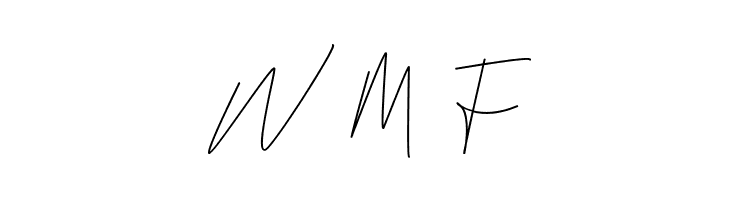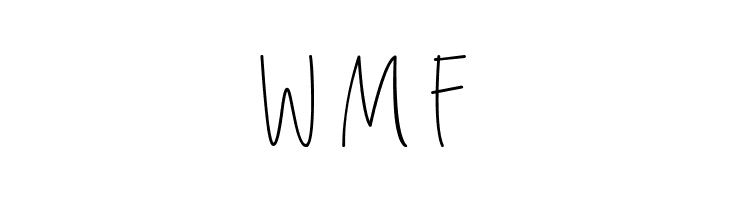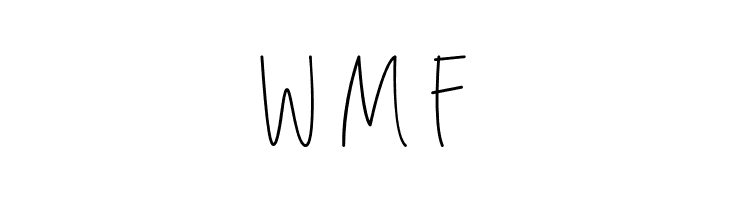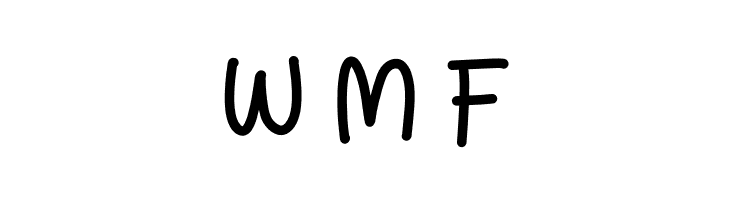
A playful, paw-print adorned font with bold, rounded characters.
A classic Blackletter font with ornate, angular letterforms and a medieval manuscript feel.
A bold, traditional blackletter font with intricate and ornate letterforms.
A bold, gothic-style blackletter font with ornate, angular characters.
A bold, geometric font with a modern and impactful style.
A playful, handwritten font with bold, rounded strokes and a whimsical style.
A bold, brush-style font with dynamic and rough strokes.
A bold, geometric font with strong, uniform letterforms.
A bold, geometric font with strong, modern letterforms.
A modern, elegant script font with flowing, cursive characters.
A bold, brush-style font with expressive, hand-painted strokes.
A decorative font with whimsical cat illustrations for each character.
A bold, blackletter-inspired font with intricate, angular letterforms.
A decorative cat-themed silhouette font.
A bold, high-contrast serif font with elegant curves and pronounced serifs.
Playful hand-drawn cat illustrations with varied expressions.
A playful, textured font with a handcrafted, fuzzy appearance.
A bold, decorative font with a stacked, three-dimensional outline effect.
A modern, elegant script font with flowing, cursive letterforms.
An elegant, flowing script font with thin, delicate lines and graceful curves.
A casual, handwritten font with a light and fluid style.
A bold, blackletter font with sharp, angular lines and a gothic aesthetic.
A graceful and artistic script font with flowing, cursive characters.
A bold, playful handwritten font with rounded strokes and a friendly appearance.
A lively, cursive font with elegant loops and a handwritten feel.
A lively and expressive handwritten font with dynamic strokes.
A modern, minimalist font with geometric lines and a sleek appearance.
A playful, flowing script font with a handwritten appearance.
A playful, handwritten font with smooth curves and a casual style.
A modern, elegant script font with flowing cursive letters and dynamic strokes.
A dynamic and expressive handwritten script with fluid, cursive strokes.
A charming and playful script font with fluid, connected letterforms.
A charming and fluid script font with elegant, flowing lines.
An elegant, flowing script font with smooth, cursive letterforms.
A playful and elegant script font with a handwritten style.